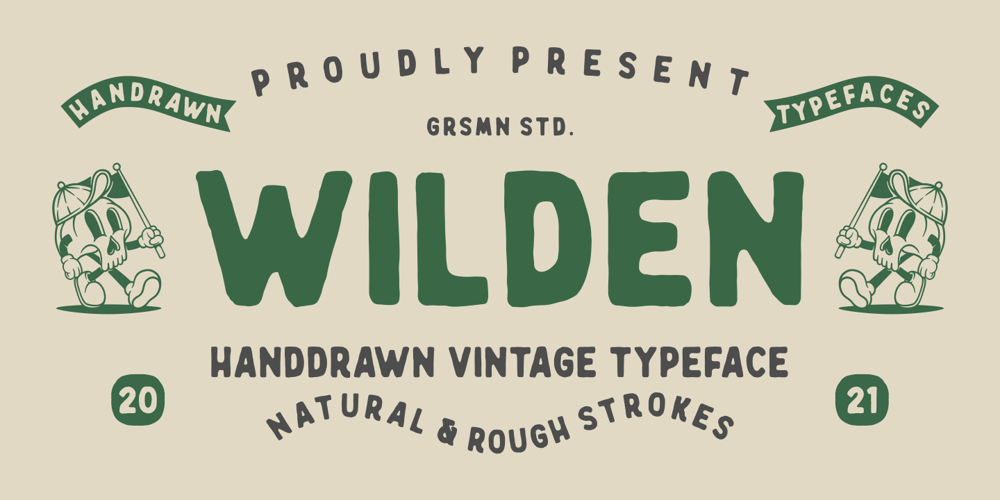
Wilden Font Family was designed by Risman Ginarwan and published by Garisman Studio. Wilden contains 1 styles and family package options. Wilden born from an inspiring vintage display. This font gives a feel of a vintage, classic, old, and based on handmade. Already PUA Encoded and I think this font is perfect for people looking for vintage aesthetic or logo-type. Suitable for any graphic designs such as branding materials, t-shirt, print, business cards, logo, poster, t-shirt, photography, quotes .etc.